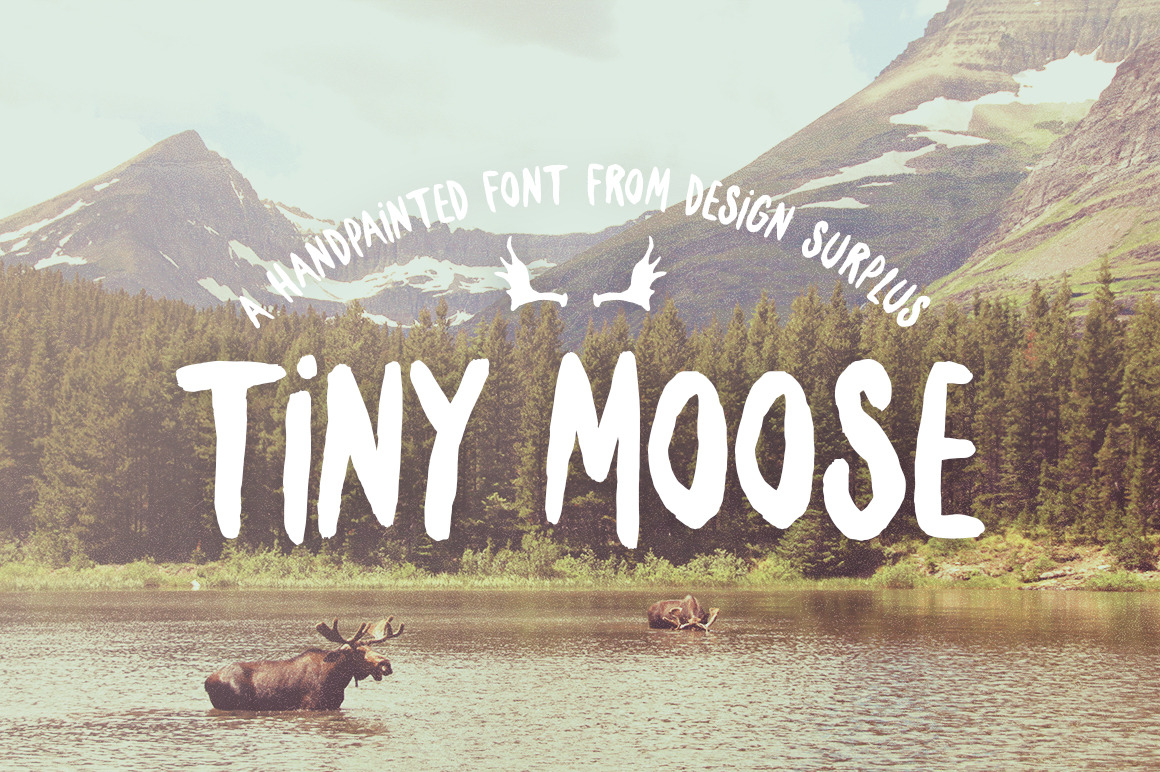
Tiny Moose Font
Tiny Moose is the new handcrafted brush font from Design Surplus. Give your artwork a unique personality with this hand painted collection of letters, bonus shields and moose antler icons. (Type in capitals to see a live example of the font above)
- 11 BONUS glyphs (4 shields and 7 moose antlers)
Tiny Moose is a simple hand painted capital letter brush font. I’ve also chucked in some bonus shields and moose antler icons which you can activate with lower case keys. (see image 2) You're welcome to use Tiny Moose in all personal and commercial projects.
See the above images. Tiny Moose looks great in anything from logos to business cards to quotes.